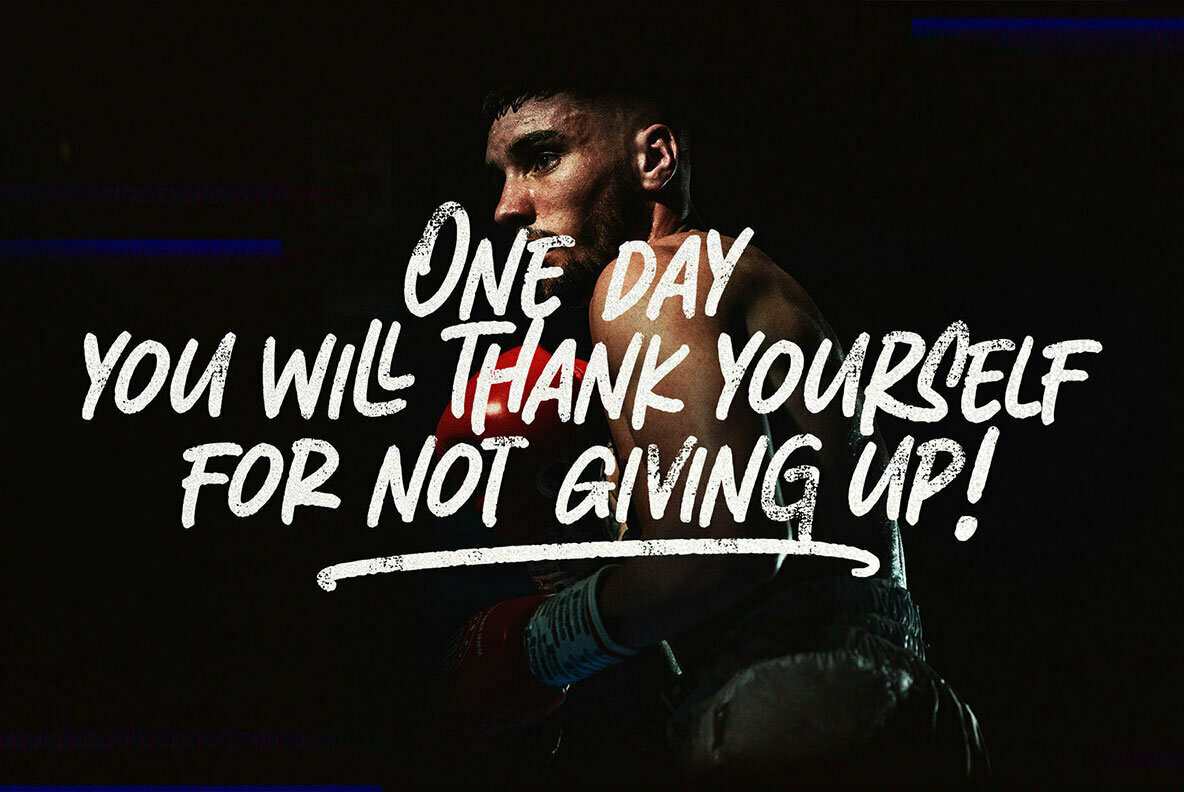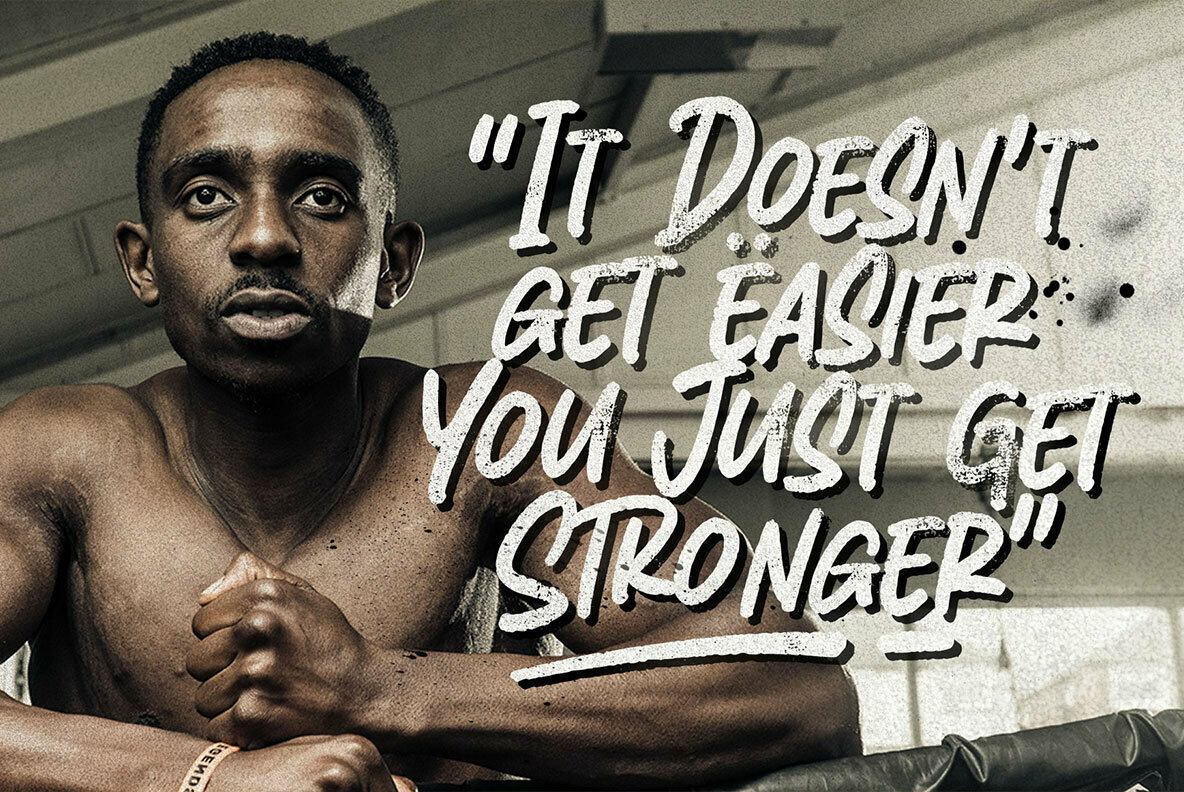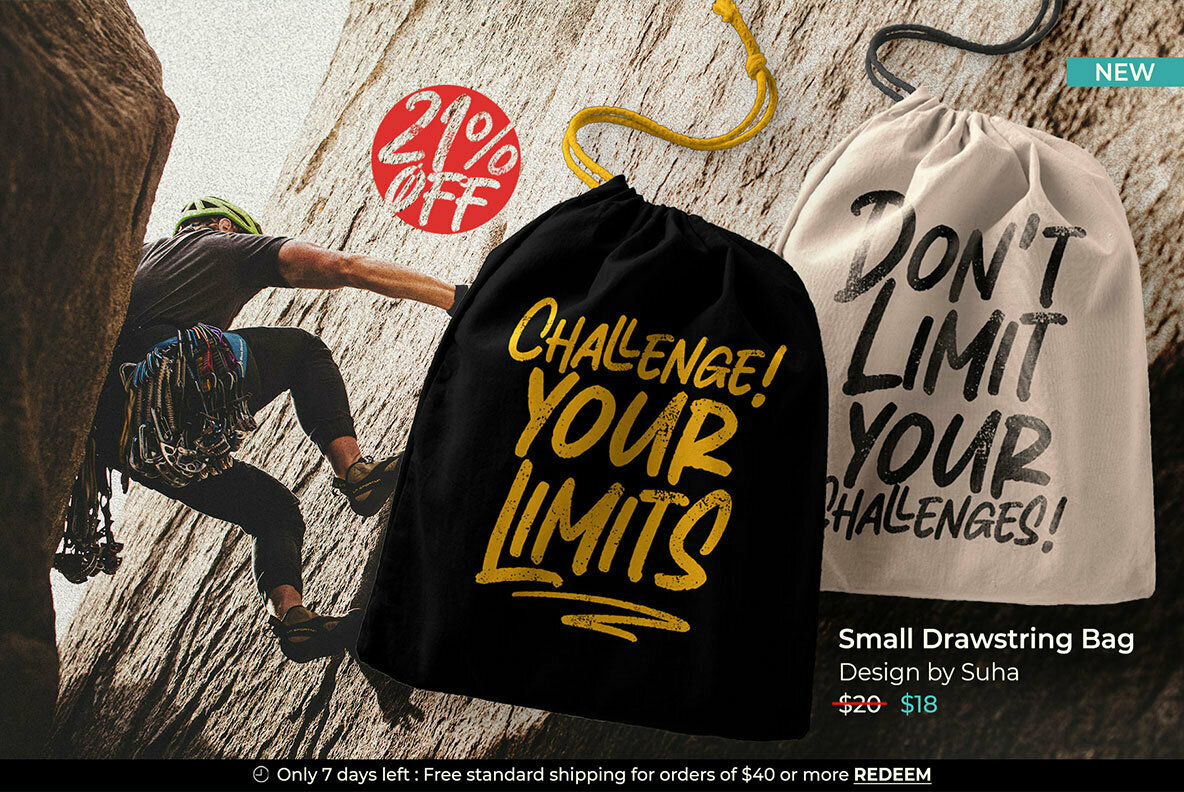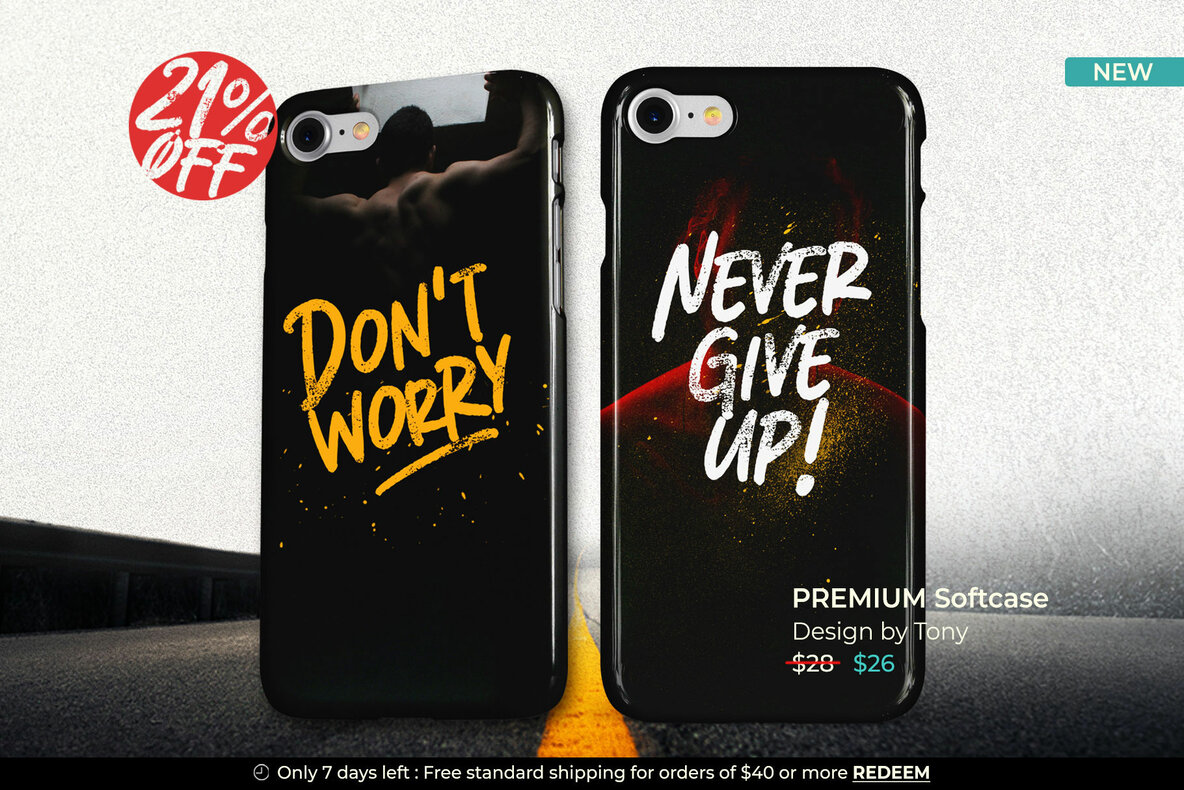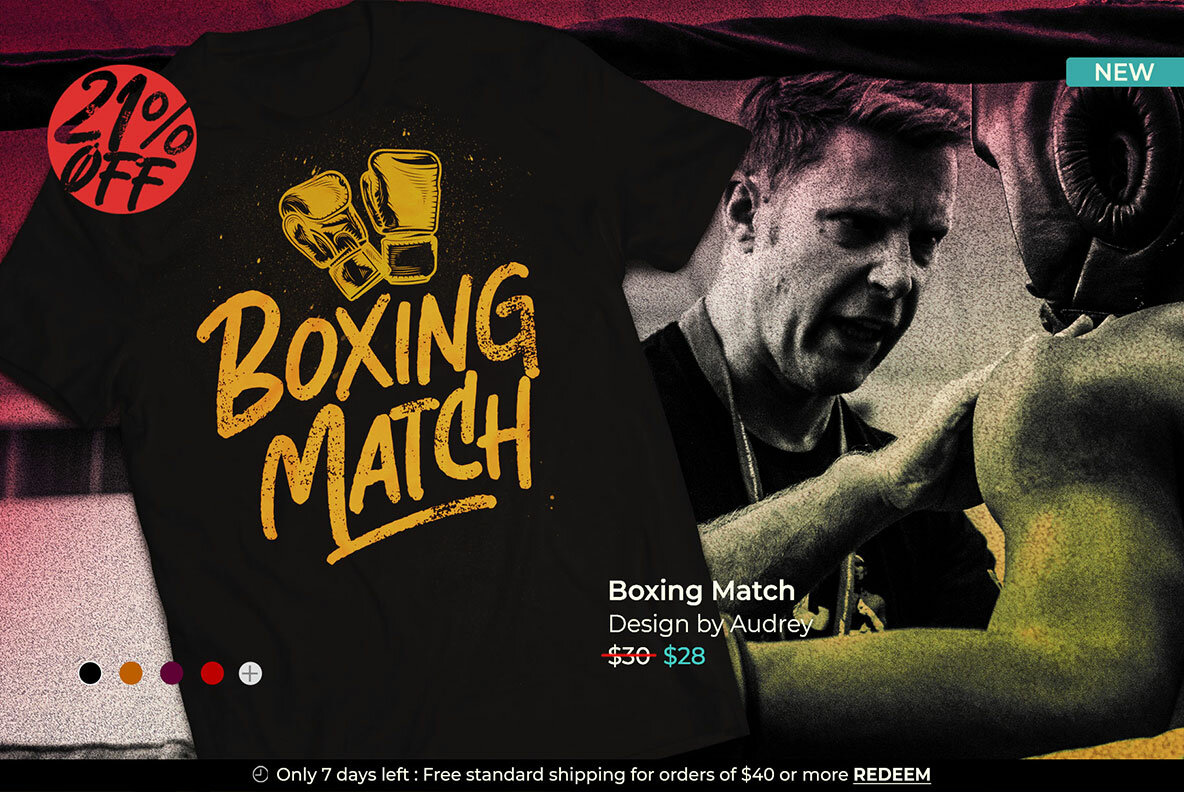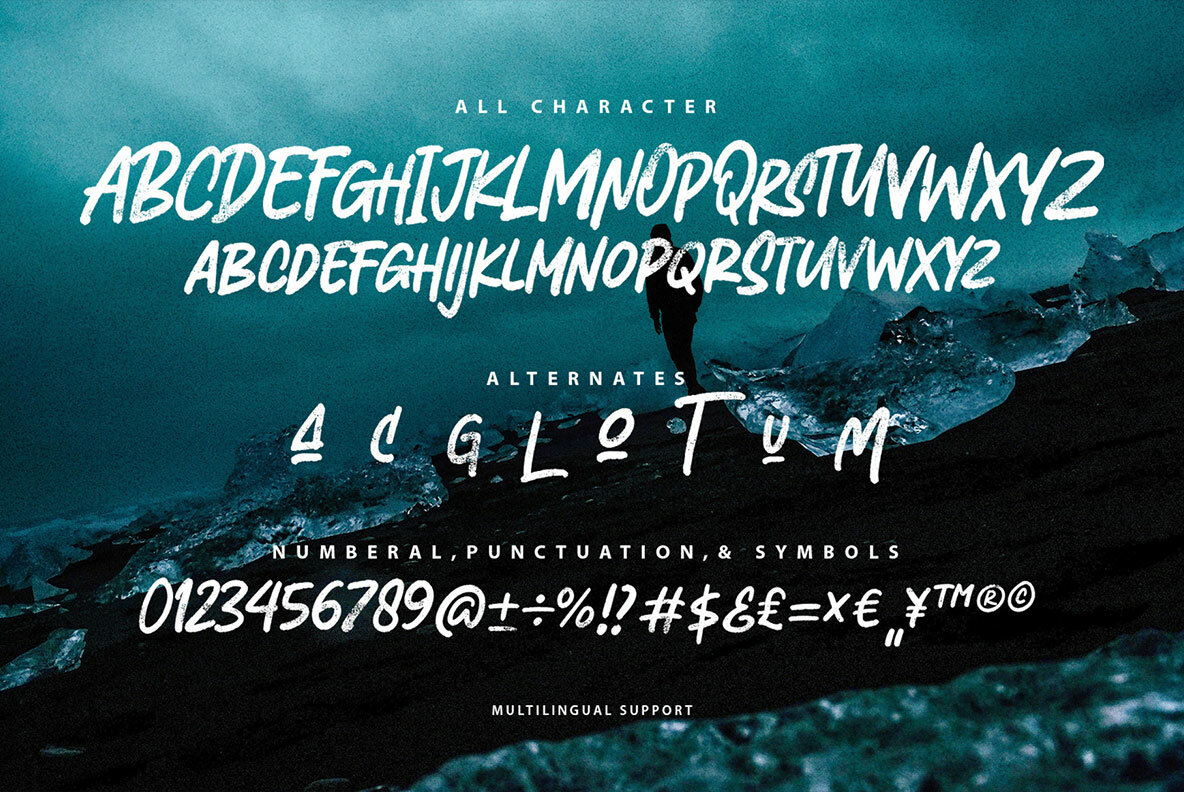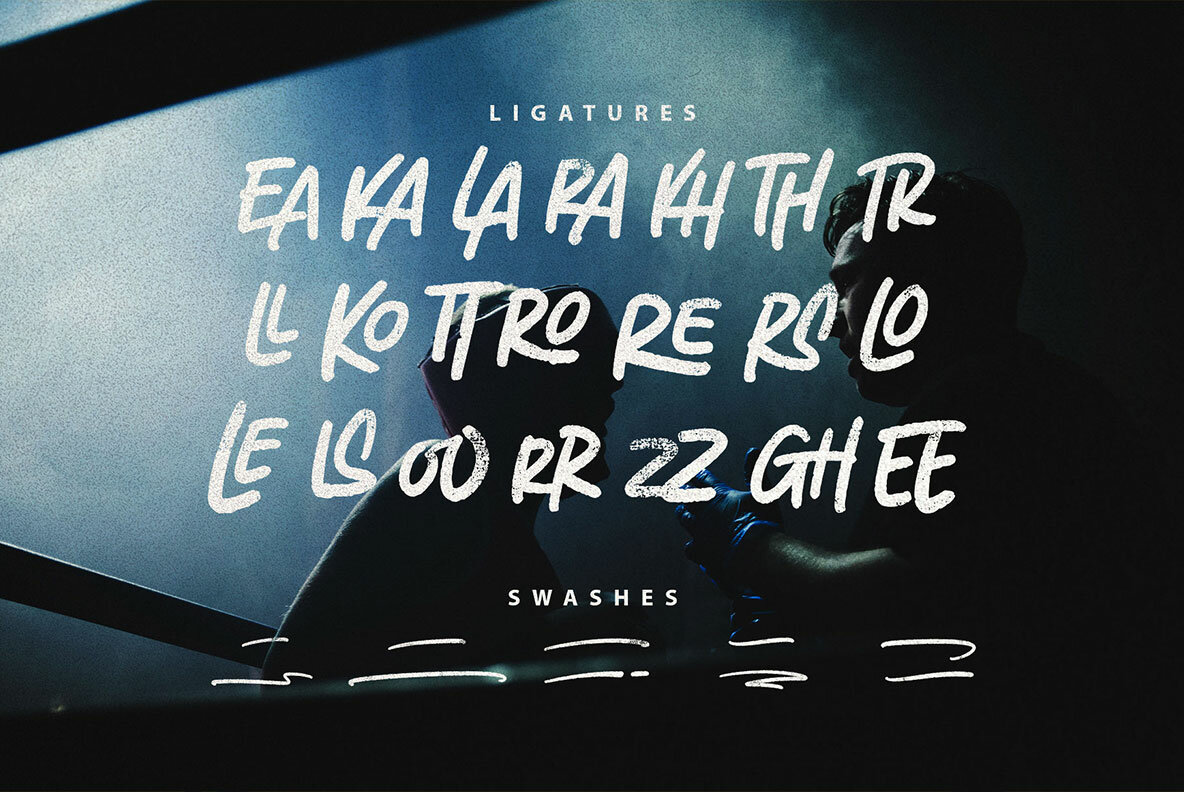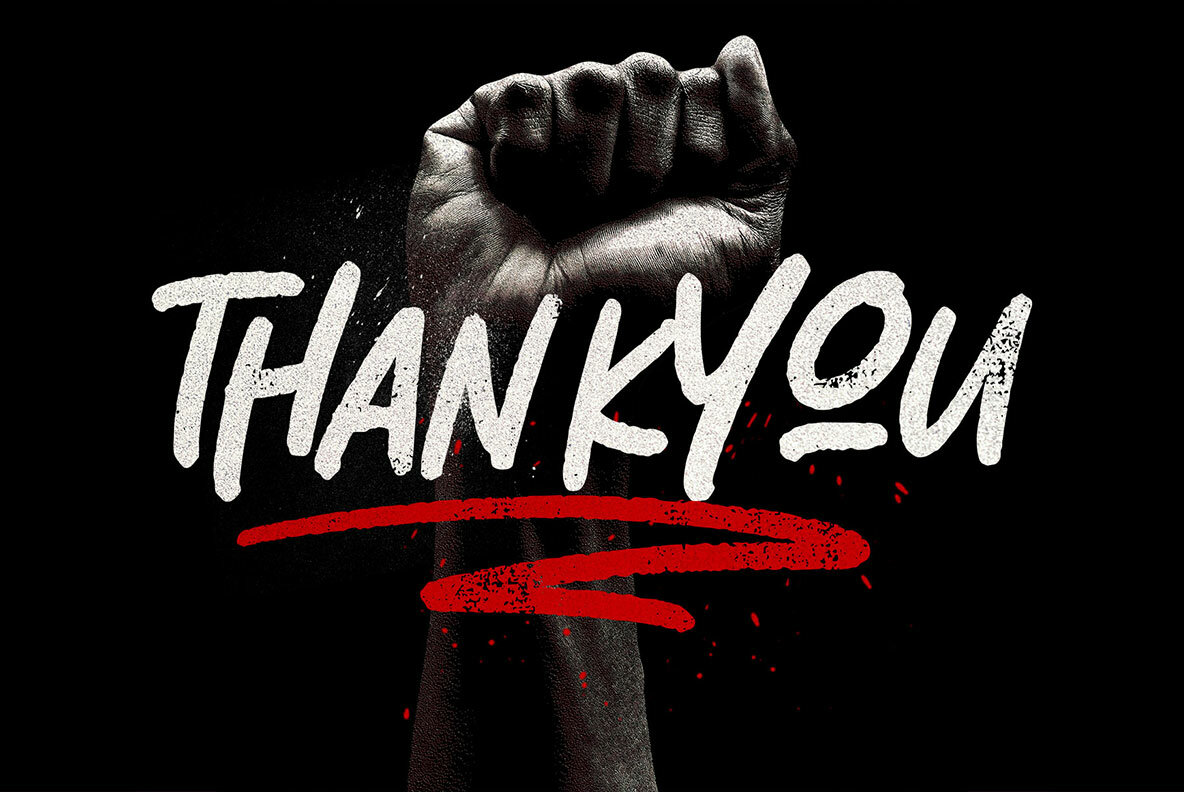
Trashbone Font
Trashbone Regular
Trashbone introduces a dynamic blend of youthful spirit and uninhibited freedom, tailored for themes that celebrate courage and adventure. Featuring a unique application of a rusty effect on strokes, this font engages with a bold, playful aesthetic perfect for sports, dark, and teen-centric projects.Trashbone: Playful Marker Font with a Rustic Flair